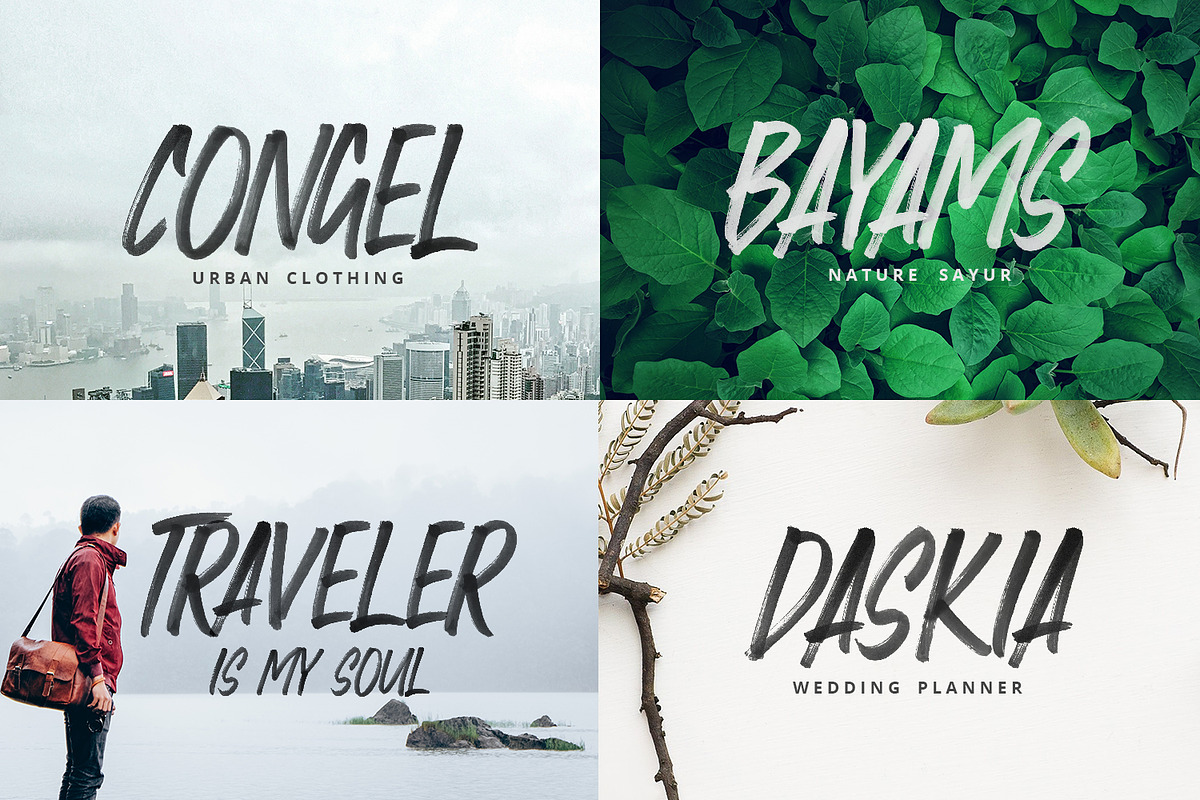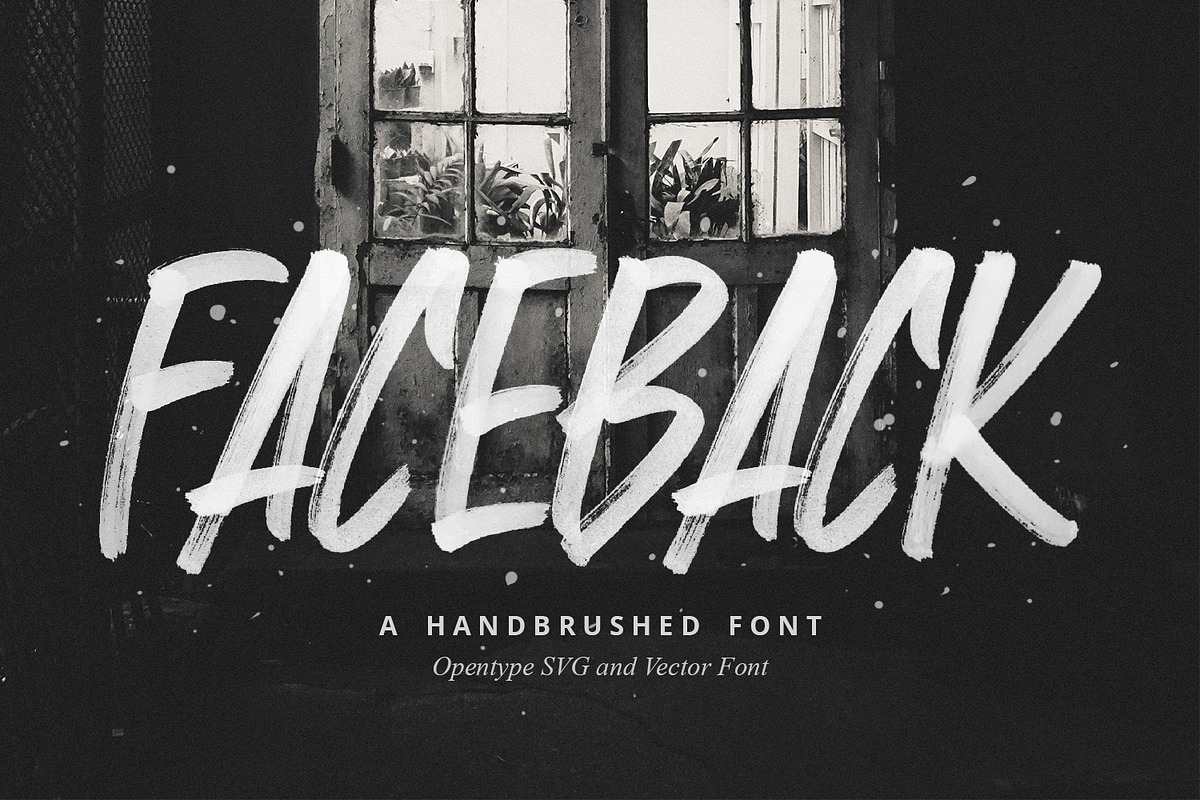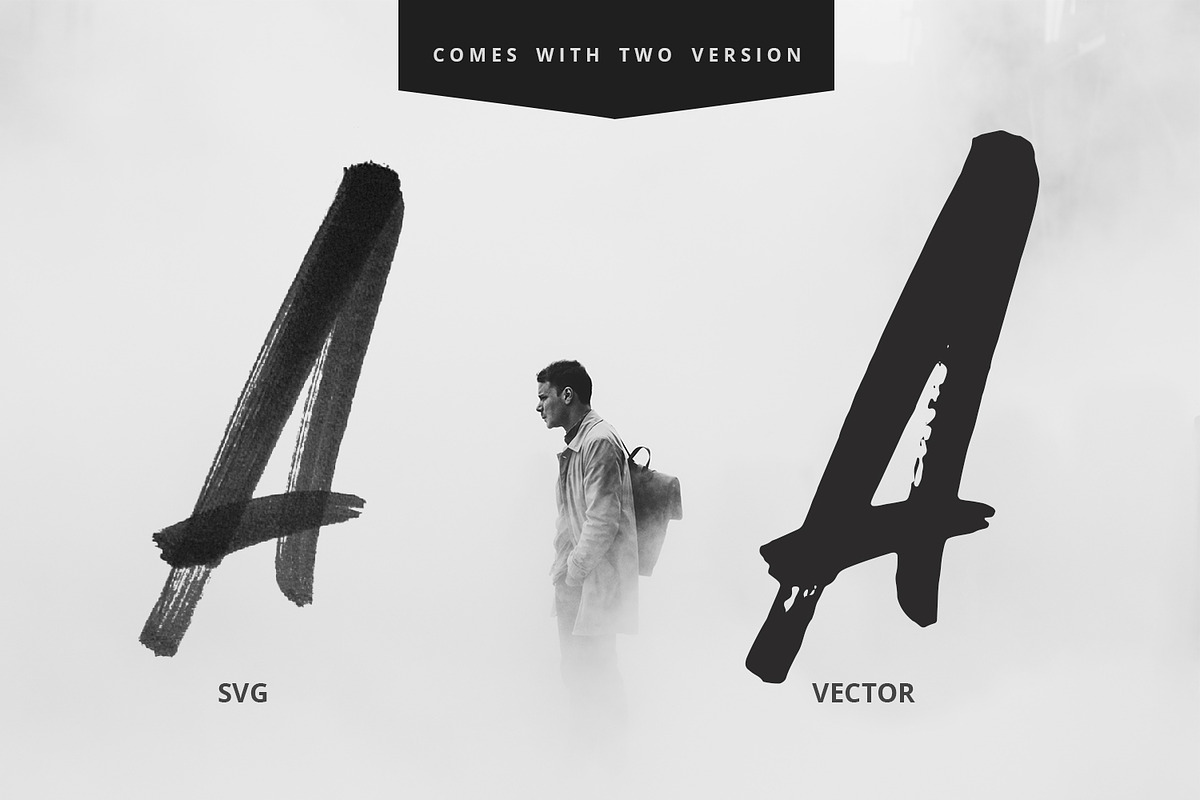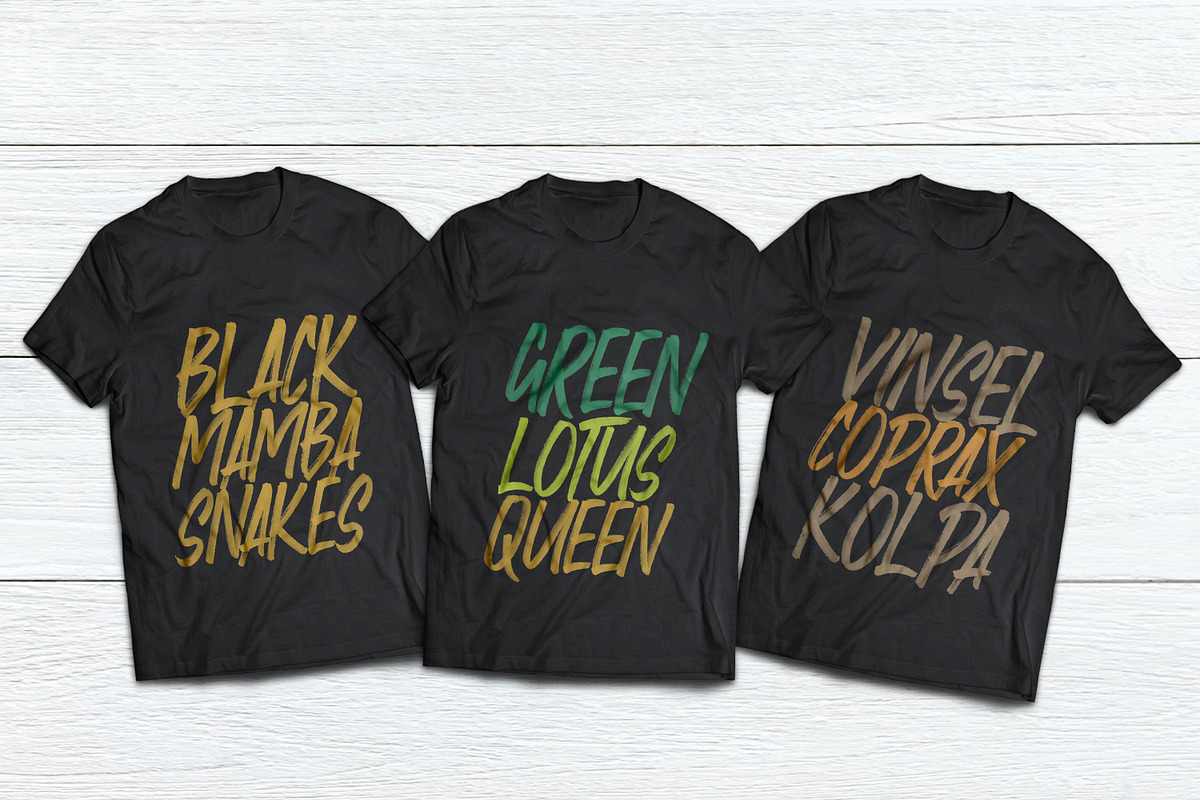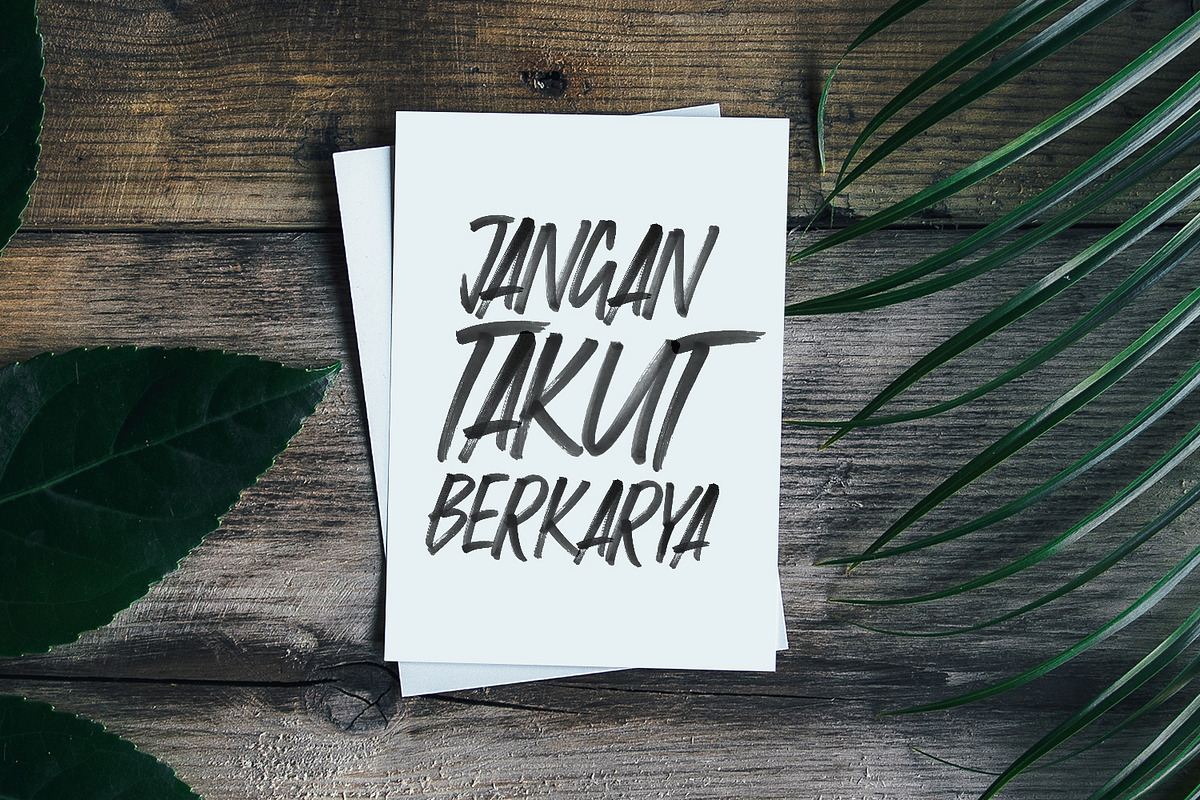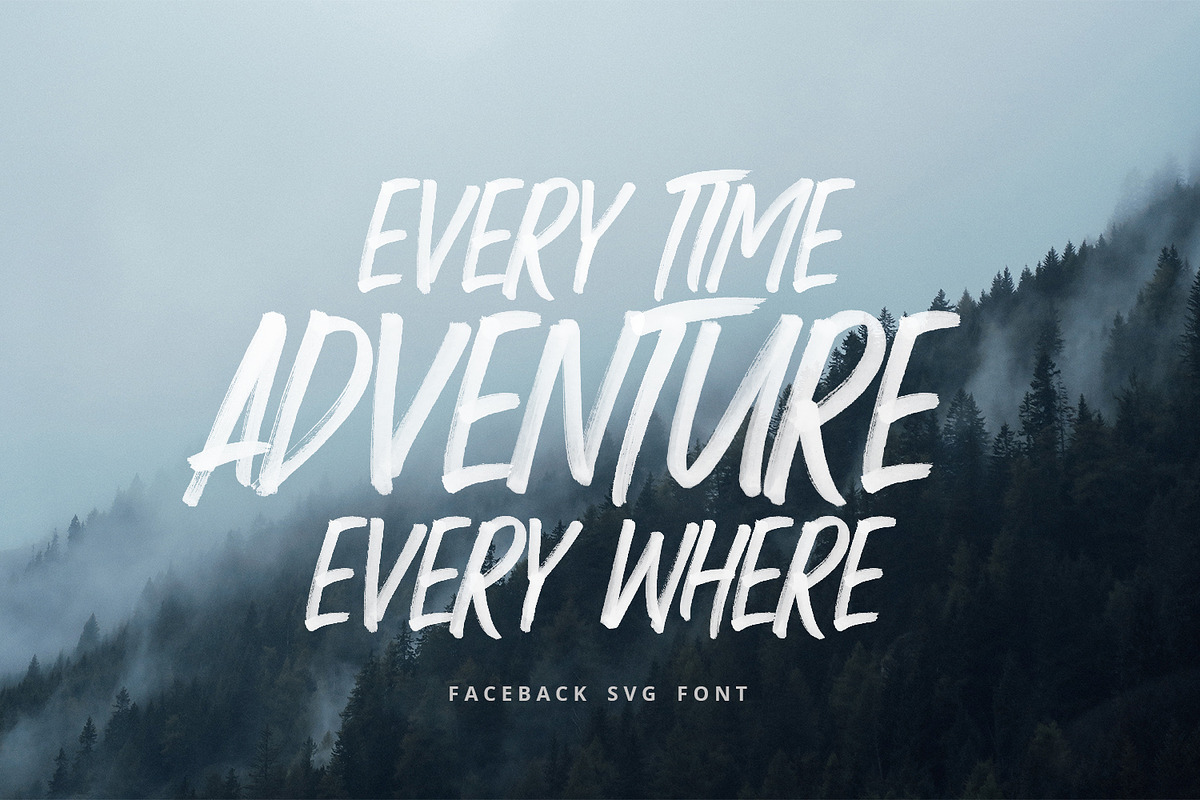
Faceback - SVG Brush Font
Faceback is a font made with brush texture. The level of accuracy contained in this font is very sharp, so you will find it exactly as we brush this type with brush pen.
Faceback Display Font
This is a large and very attractive brush display font view, with a little rough style. It will be perfect for posters, packaging, advertisements, headlines, branding, signboards, and whatever else you want from an urban look and feel.